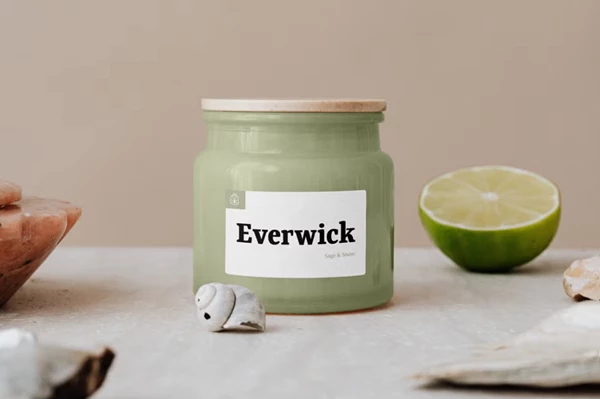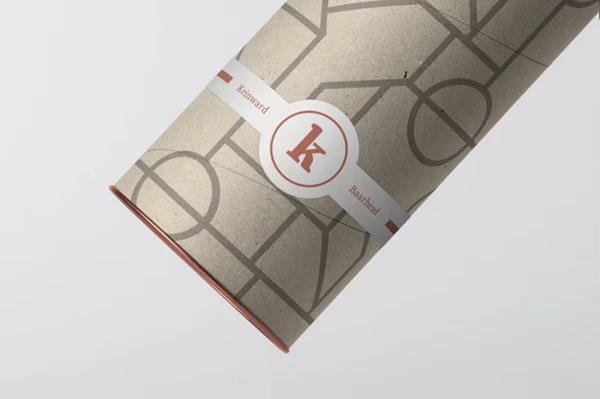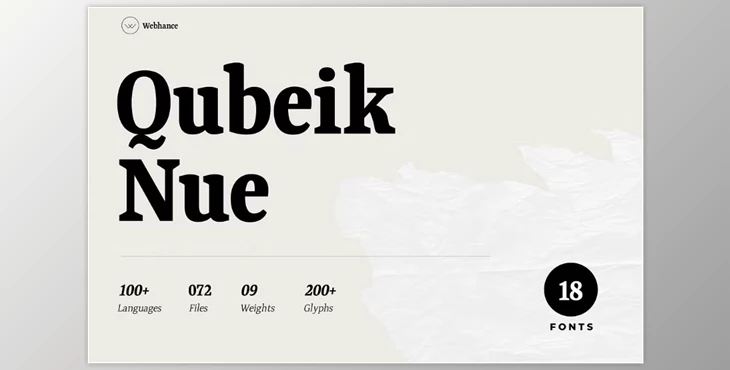
Qubeik Nue - A Premium Serif Font:
Qubeik Nue is a sophisticated serif typeface merging the class of editorial design with digital typography precision. As a q typeface, it's an ergonomic tool for designers due to its 9 distinct weights paired with italic counterparts amounting to a total of 18 fonts; as it is sharp with modern rhythmic sizes, bold, sharp serifs, it can fill many functions like headlines, branding, label design, pack website design, and even elaborate multi-leveled ae graphical compositions. Supporting over a hundred languages makes Qubeik Nue a truly global font adaptable to various linguistic requirements.
- Comprehensive language support, including languages like Afrikaans, Danish, French, German, Italian, Spanish, and many more.
- Comprises uppercase and lowercase letters, numbers, and punctuation symbols.
- It offers nine weights and nine italics, which results in a total of eighteen fonts.
- Features more than 200 glyphs, which allow for a greater variety of type customization.
- In any printed or digital context, Qubeik Nue provides clarity alongside elegance, ensuring its label as a designer's most treasured tool.